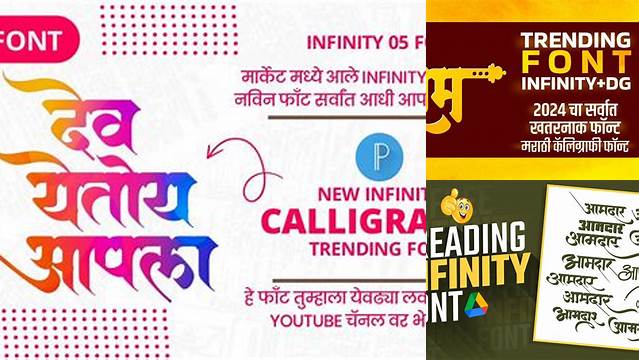
Infinity Marathi Calligraphy Font: Free Download
Hey guys! Are you looking for that perfect Marathi calligraphy font to give your designs a touch of elegance and tradition? Look no further! The Infinity Marathi calligraphy font is a stunning choice, and the best part? You can download it for free! In this article, we'll dive deep into the world of Marathi calligraphy, explore the beauty of the Infinity font, and guide you on how to download and use it effectively. So, let's get started!
1. Understanding Marathi Calligraphy
Marathi calligraphy, also known as Devanagari calligraphy, is an art form that beautifully represents the Marathi language through stylized lettering. It's deeply rooted in Indian culture and history, often used in religious texts, invitations, and artistic creations. The flow and curves of Marathi calligraphy add a unique aesthetic appeal that's hard to replicate with regular fonts. The essence of Marathi calligraphy lies in its ability to convey emotions and meanings through the artistic strokes of the pen. Think of it as painting with letters, where each curve and line tells a story. Understanding the basics of Marathi calligraphy helps you appreciate the nuances of fonts like Infinity and how they capture this traditional art form digitally. The rich heritage of Marathi calligraphy makes it a valuable asset in design, providing a touch of authenticity and cultural significance. Using a font like Infinity allows you to seamlessly blend traditional aesthetics with modern design principles. So, whether you're creating a wedding invitation, a poster, or a digital artwork, understanding Marathi calligraphy will elevate your work.
2. The Beauty of Infinity Marathi Font
The Infinity Marathi font is a masterpiece in itself. It captures the essence of traditional Marathi calligraphy while adding a modern twist. Its elegant curves and stylish strokes make it perfect for a wide range of applications, from wedding invitations to branding materials. What makes the Infinity font stand out is its ability to convey a sense of sophistication and grace. Each character is meticulously designed to ensure legibility while maintaining its artistic flair. The font’s versatility allows it to be used in both print and digital media, making it a valuable asset for designers. Imagine using the Infinity font for a logo design – it instantly adds a touch of class and cultural relevance. Or picture it on a book cover, drawing the reader in with its beautiful lettering. The beauty of the Infinity Marathi font lies in its ability to transform ordinary text into extraordinary art. It's not just a font; it's a statement. It's a way to celebrate Marathi culture and heritage in a contemporary setting. So, if you're looking for a font that combines tradition with modernity, Infinity is the perfect choice.
6. Best Practices for Marathi Calligraphy Use
Using Marathi calligraphy effectively requires an understanding of its cultural context and aesthetic principles. It's not just about using a fancy font; it's about conveying the right message and emotion. One of the best practices is to use Marathi calligraphy sparingly. Overusing it can dilute its impact and make your design look cluttered. Instead, focus on using it for key elements such as headings, titles, or quotes. Another important consideration is legibility. While calligraphy is beautiful, it should also be readable. Choose font sizes and styles that ensure your message is clear and easy to understand. Avoid using overly ornate or complex styles for large blocks of text, as this can strain the reader's eyes. Think about the context in which you're using the calligraphy. Is it for a formal invitation, a casual poster, or a digital ad? The style and weight of the font should match the tone and purpose of the design. For example, a heavier, more dramatic calligraphy style might be suitable for a wedding invitation, while a lighter, more playful style might be better for a children's book. Pay attention to the spacing and alignment of your text. Proper spacing can enhance the readability and visual appeal of calligraphy. Experiment with different layouts and arrangements to find what works best for your design. Remember, the goal is to create a harmonious and visually appealing composition that effectively communicates your message. So, keep these best practices in mind when using Marathi calligraphy, and you'll create designs that are both beautiful and meaningful.
7. Infinity Font for Wedding Invitations
Looking to add a touch of elegance and tradition to your wedding invitations? The Infinity Marathi font is an excellent choice! Its graceful curves and stylish strokes make it perfect for conveying the joyous and celebratory spirit of a wedding. Using calligraphy on wedding invitations instantly elevates their aesthetic appeal. It adds a personal and artistic touch that's hard to achieve with standard fonts. The Infinity font, in particular, captures the essence of Marathi culture, making it ideal for traditional Indian weddings. When designing wedding invitations with the Infinity font, consider using it for key elements such as the couple's names, the date, and the venue. These are the most important pieces of information, and highlighting them with calligraphy can make them stand out. Think about the overall design and theme of your wedding. The font should complement the other design elements, such as the colors, paper stock, and embellishments. If you're going for a classic and formal look, pair the Infinity font with a simple and elegant layout. For a more modern and whimsical feel, you can experiment with different colors and textures. Remember to consider legibility when choosing font sizes and styles. While calligraphy is beautiful, it should also be readable. Use a font size that's large enough for guests to easily read the invitation details. You can also use different weights of the Infinity font to create visual hierarchy. For example, use a bolder weight for the couple's names and a lighter weight for the other details. So, if you want to create wedding invitations that are both stunning and culturally relevant, the Infinity Marathi font is a perfect choice!
8. Designing Logos with Infinity Marathi Font
The Infinity Marathi font isn't just for invitations; it can also be a fantastic choice for logo design! A well-designed logo is crucial for branding, and using a unique and elegant font like Infinity can help your brand stand out. When designing a logo, the font you choose plays a significant role in conveying your brand's personality and values. The Infinity font, with its sophisticated and traditional feel, can be particularly effective for businesses that want to project a sense of heritage, elegance, or cultural connection. Think about the type of business you're branding. Is it a traditional Marathi restaurant, a cultural organization, or a boutique clothing store? The Infinity font can add a touch of authenticity and cultural relevance to your logo. Keep your logo simple and memorable. Don't try to cram too much information into it. Focus on using the Infinity font in a clean and impactful way. You might want to use it for the company name or a tagline, and pair it with a simple icon or graphic element. Consider the color palette of your logo. The colors you choose can affect how people perceive your brand. Experiment with different color combinations to see what works best with the Infinity font. You might want to use colors that are traditionally associated with Marathi culture, such as gold, red, and green. Think about the scalability of your logo. It should look good whether it's printed on a business card or displayed on a large billboard. Choose a font size and style that's legible at different sizes. Remember, a great logo is more than just a pretty design; it's a visual representation of your brand. Using the Infinity Marathi font can help you create a logo that's both beautiful and meaningful, effectively communicating your brand's identity and values. So, explore the possibilities and see how the Infinity font can elevate your logo design!
9. Creating Posters with Infinity Calligraphy
The Infinity Marathi calligraphy font can bring a unique and artistic flair to your poster designs. Whether you're promoting an event, advertising a product, or creating a piece of art, using calligraphy can make your poster stand out. Calligraphy adds a touch of elegance and sophistication that's hard to achieve with standard fonts. The Infinity font, with its beautiful curves and traditional style, is perfect for posters that aim to convey a sense of culture, heritage, or artistry. When designing posters, think about the message you want to communicate. What's the main purpose of your poster? Is it to inform, persuade, or entertain? The font you choose should align with the message and tone of your poster. Use the Infinity font for headlines and key text elements. This will draw the viewer's eye and create a strong visual impact. You can pair it with simpler fonts for body text to ensure readability. Consider the layout and composition of your poster. The way you arrange the text and images can affect how people perceive your message. Experiment with different layouts to see what works best. You might want to use a grid system to create a balanced and visually appealing design. Think about the color scheme of your poster. Colors can evoke emotions and create a mood. Choose colors that complement the Infinity font and enhance the overall design. For example, you might use warm colors like gold and red to create a sense of tradition and elegance. Pay attention to the negative space in your poster. Empty space can be just as important as the text and images. It can help to create a sense of balance and clarity. Remember, a great poster is a powerful visual communication tool. Using the Infinity Marathi calligraphy font can help you create posters that are not only beautiful but also effective in conveying your message. So, let your creativity flow and see how the Infinity font can transform your poster designs!
22. Infinity Font for Event Invitations
23. Designing Business Cards with Infinity Font
24. Using Infinity Font in Websites
25. Infinity Font for Greeting Cards
26. Creating Art Prints with Infinity Font
27. Infinity Font in Motion Graphics
28. Calligraphy and Cultural Identity
29. Future Trends in Marathi Calligraphy
30. Resources for Learning Marathi Calligraphy